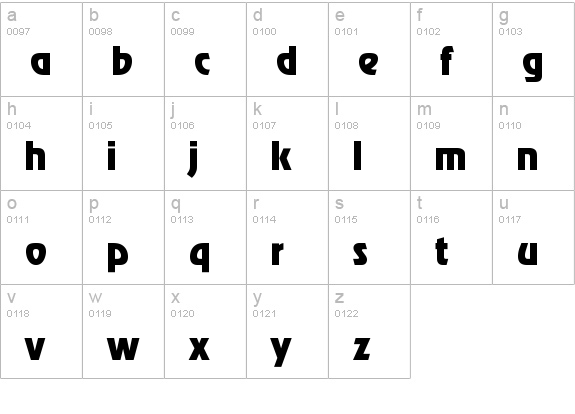
Ragtime-Bold Font Details
Ragtime-Bold is a bold and dynamic font that exudes a sense of energy and sophistication. Its strong and distinct letterforms make a bold statement, making it perfect for headlines, logos, and other attention-grabbing designs. With its unique combination of vintage charm and modern flair, Ragtime-Bold brings a touch of nostalgia to any project. Its clean lines and elegant curves create a timeless appeal that is both classic and contemporary. This versatile font is ideal for a wide range of applications, from print materials to digital designs. Whether you're designing for a retro-inspired brand or aiming for a sleek and stylish look, Ragtime-Bold can elevate your work to the next level. But the best part? Ragtime-Bold is available for free! You can freely download this impressive font at FontsMarket.com. This means that you can add this stunning typeface to your collection without breaking the bank. So why wait? Experience the power and beauty of Ragtime-Bold for yourself. Download it today and unleash your creativity with this exceptional font.